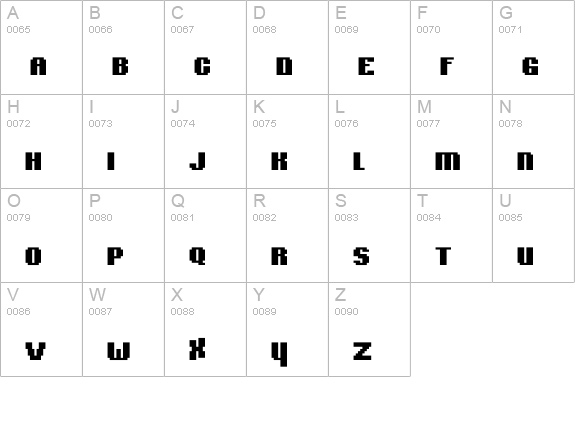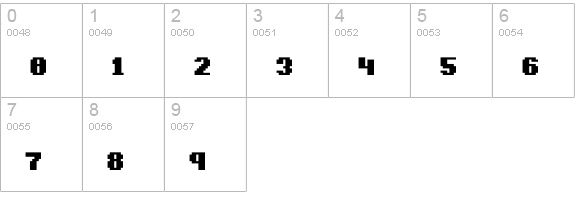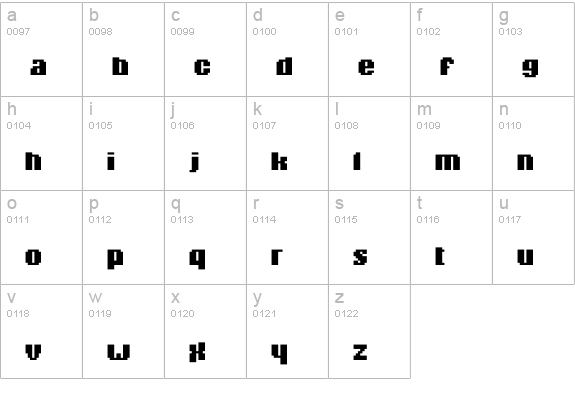
pixelblock Normal is the standard, neutral variant in the pixelblock typeface family \xE2\x80\x94 well suited to general body text, paragraphs, and standard typographic work.
Introducing Pixelblock Normal, a captivating and versatile font that adds a touch of retro charm to any design project. With its clean lines and perfectly squared-off edges, this font effortlessly captures the essence of classic pixelated typography. Pixelblock Normal is a free font that can be downloaded at FontsMarket.com. Whether you're looking to create captivating headlines, eye-catching logos, or unique display text, this font offers a wide range of possibilities. Its balanced proportions and bold strokes make it easily legible, even at smaller sizes. This font is perfect for projects that require a modern twist on the nostalgic pixelated aesthetic. Its versatility allows it to seamlessly blend into various design themes, from video game-inspired graphics to futuristic interfaces. Pixelblock Normal's extensive character set includes uppercase and lowercase letters, numbers, punctuation marks, and special symbols, ensuring that you have everything you need to bring your creative vision to life. Its sleek and minimalistic design is sure to make a lasting impression on your audience. Enhance your design arsenal with Pixelblock Normal, a freely available font that is sure to elevate your projects to new heights. Download it today at FontsMarket.com and unlock a world of endless possibilities.